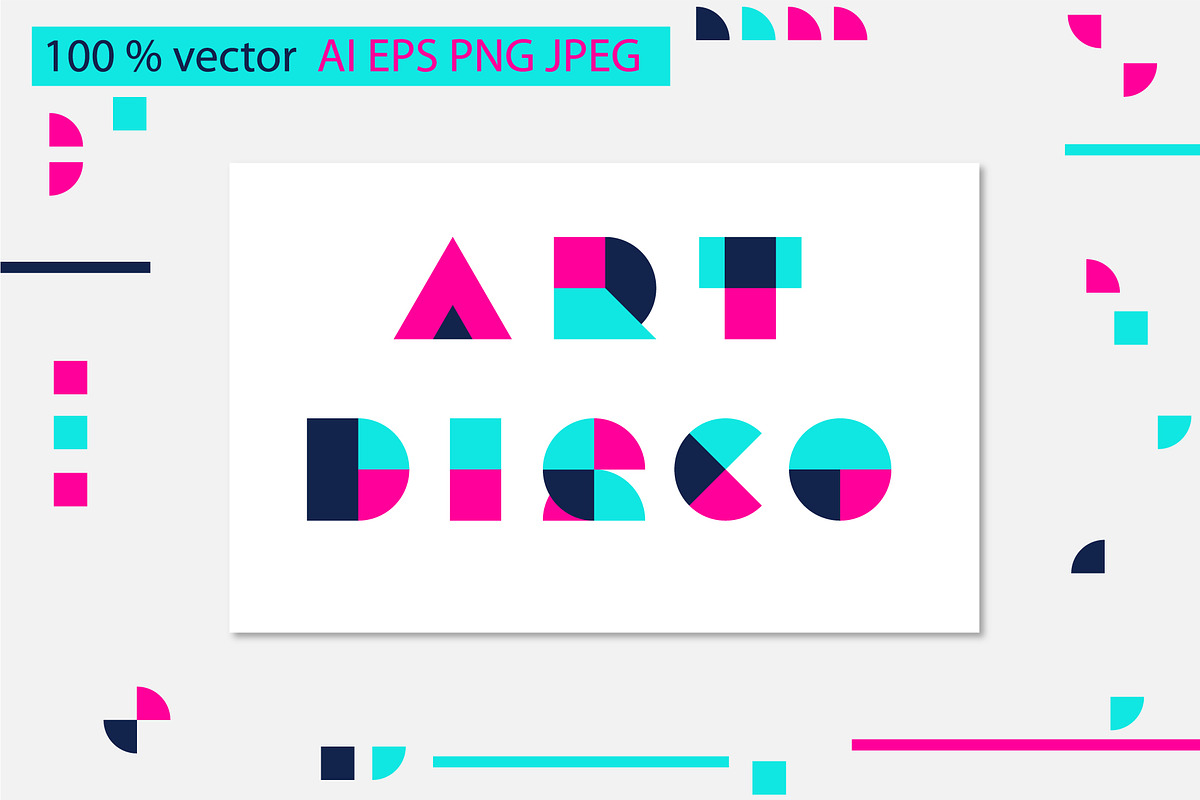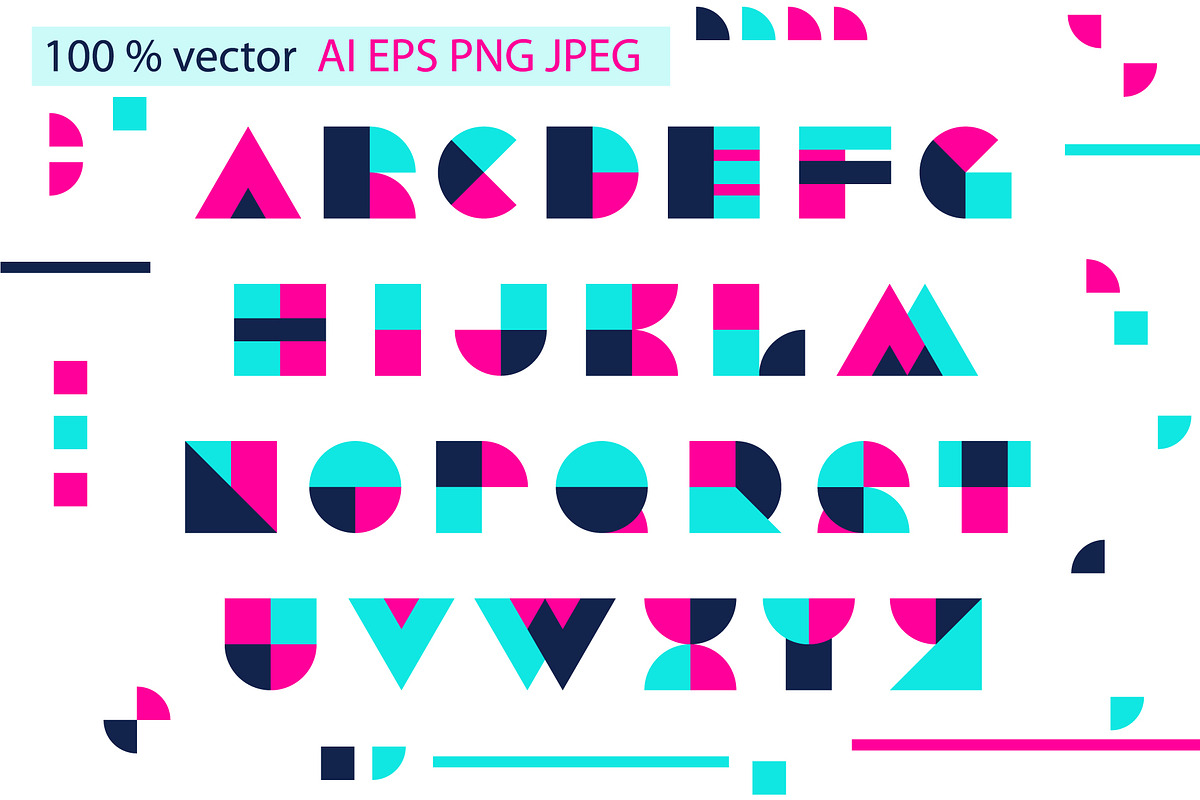
Geometric Font
Geometric color overlay letters
Why Geometric Font is worth a look
Geometric Font by MalinaShop fits naturally into Branding, posters, packaging, typography.